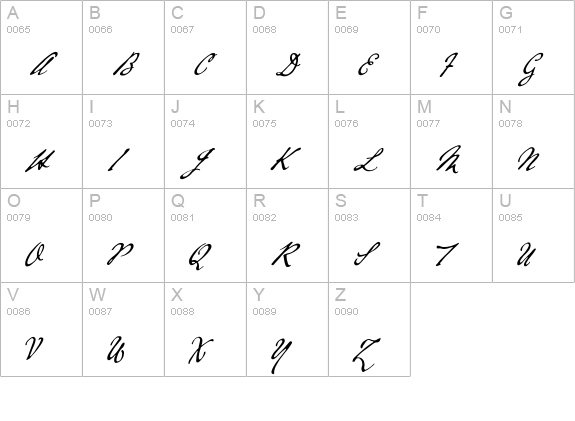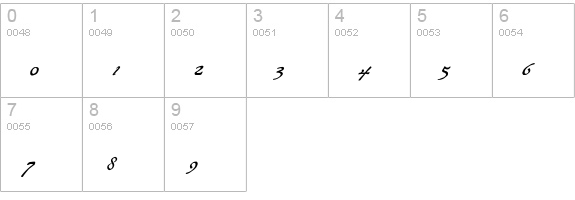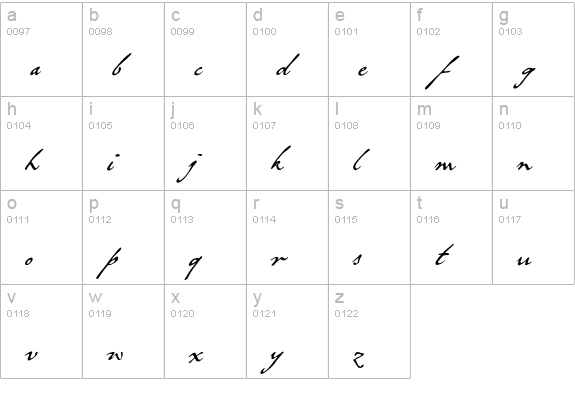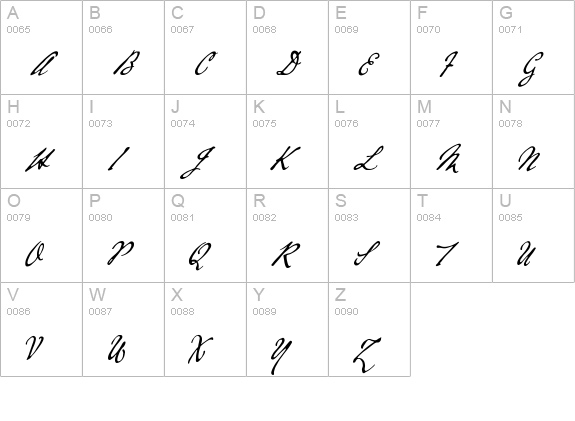
Grosvenor Font Details
Grosvenor font is a stunning typeface that effortlessly combines elegance with a touch of modernity. With its clean lines and graceful curves, this font is perfect for any project that requires a sophisticated and refined look. Whether you're designing a wedding invitation, creating a logo, or crafting a beautiful website, Grosvenor font will add a touch of class to your work. One of the best things about Grosvenor font is that it is free. Yes, you read that right - this incredible font is freely available to download at FontsMarket.com. You don't have to worry about breaking the bank to add a touch of luxury to your designs. Simply head over to FontsMarket.com, find Grosvenor font, and download it for free. It's as easy as that! Not only is Grosvenor font free, but it also offers a wide range of versatility. With a variety of weights and styles, you can choose the perfect variation to suit your project's needs. Whether you want a bold and eye-catching headline or a subtle and elegant body text, Grosvenor font has got you covered. The attention to detail in Grosvenor font is truly remarkable. Each letter is meticulously crafted to ensure a harmonious balance between form and function. The legibility of the font remains uncompromised, even in smaller sizes, making it ideal for both print and digital designs. So, what are you waiting for? Elevate your designs with Grosvenor font, now available for free at FontsMarket.com. Download it today and experience the timeless beauty and versatility that this font has to offer.